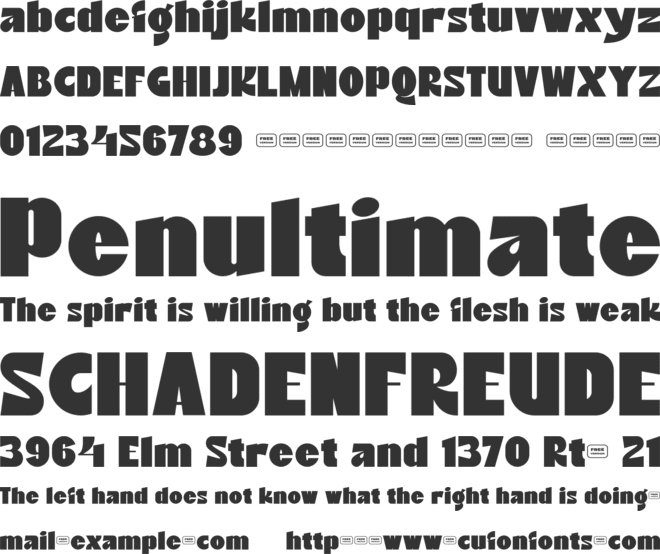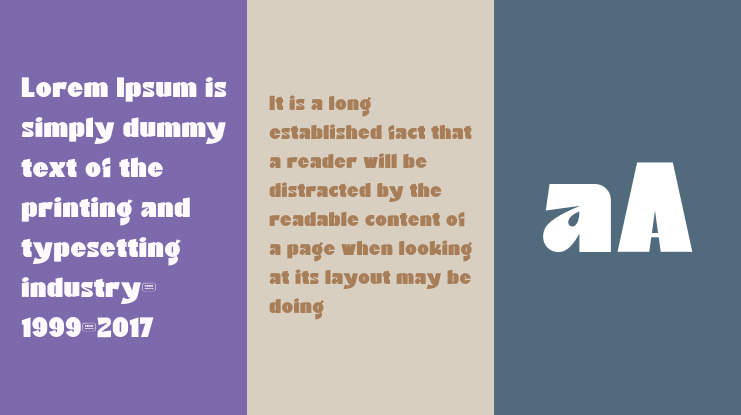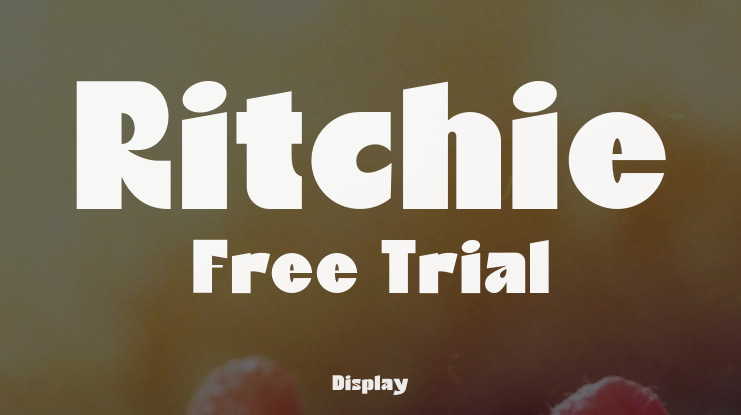
Ritchie Free Trial Font
Ritchie is a bold and distinctive display font that stands out with its unconventional and artistic letterforms. Perfect for posters, logos, headlines, and creative branding, Ritchie brings a unique and edgy style to any design. Its striking, modern aesthetic is ideal for projects that require a bold statement and a touch of originality. Whether you're designing for print or digital, Ritchie adds personality and flair, ensuring your work grabs attention and leaves a lasting impression.